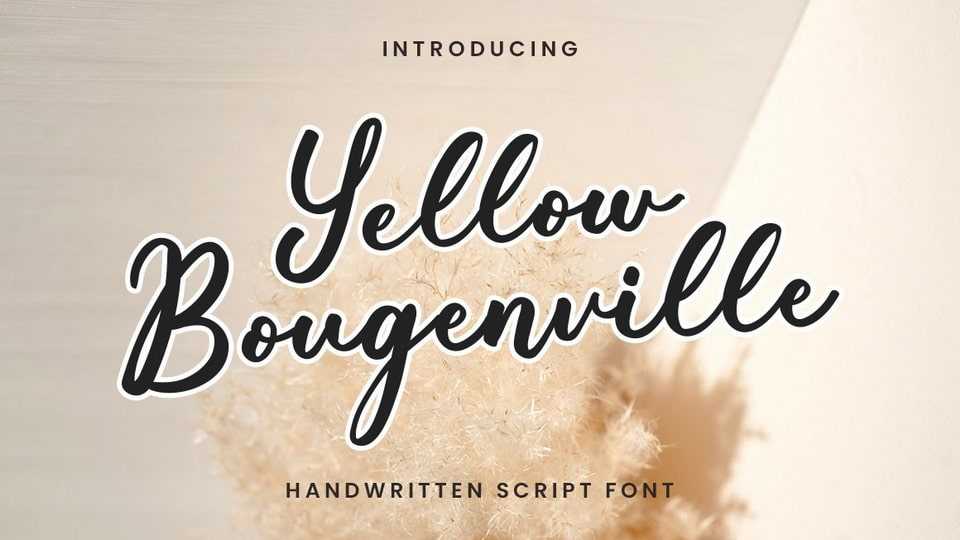
Download Yellow Bougenville font, an elegant and beautiful handwritten typeface that has a natural shape. This stylish font will look beautiful on a variety of design projects.